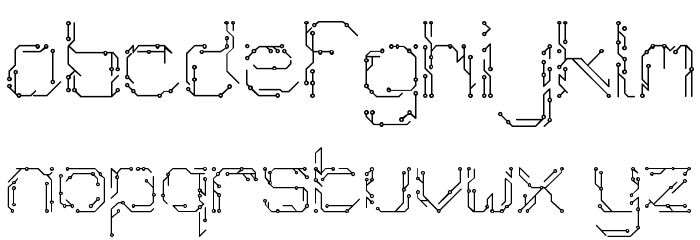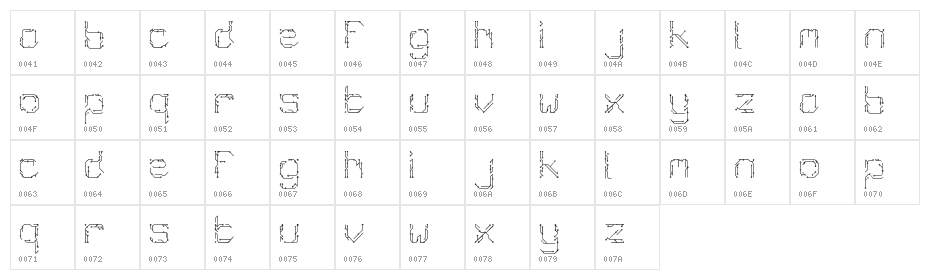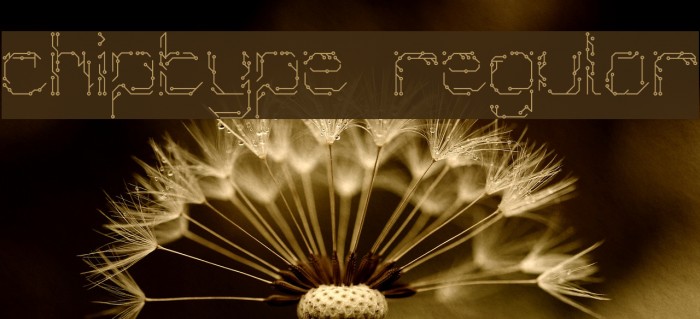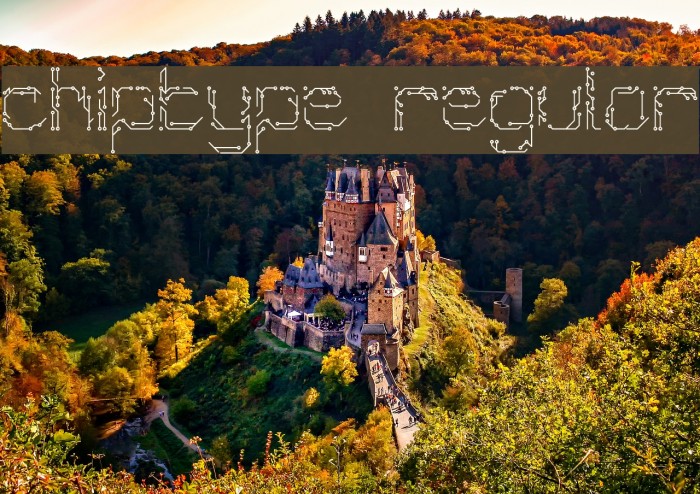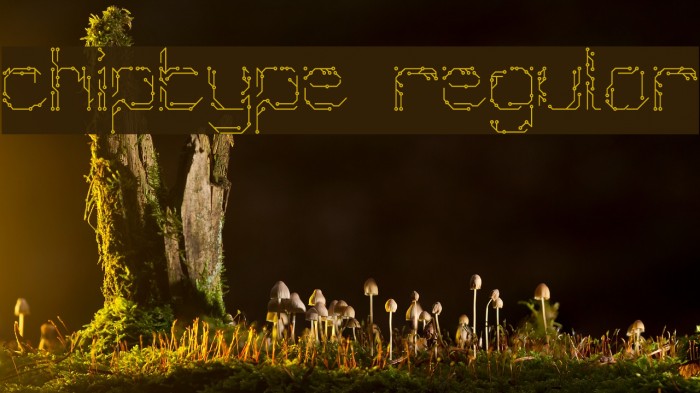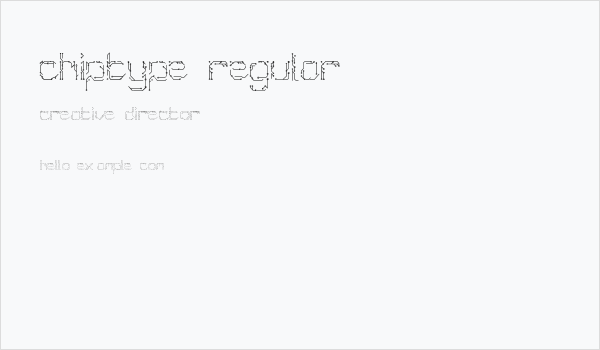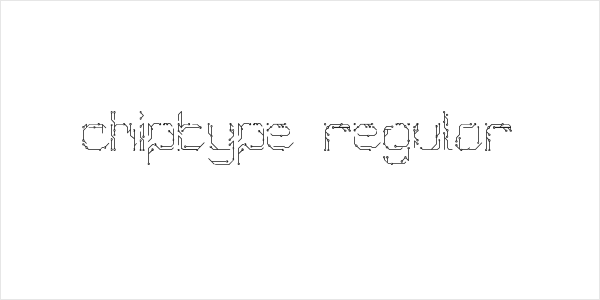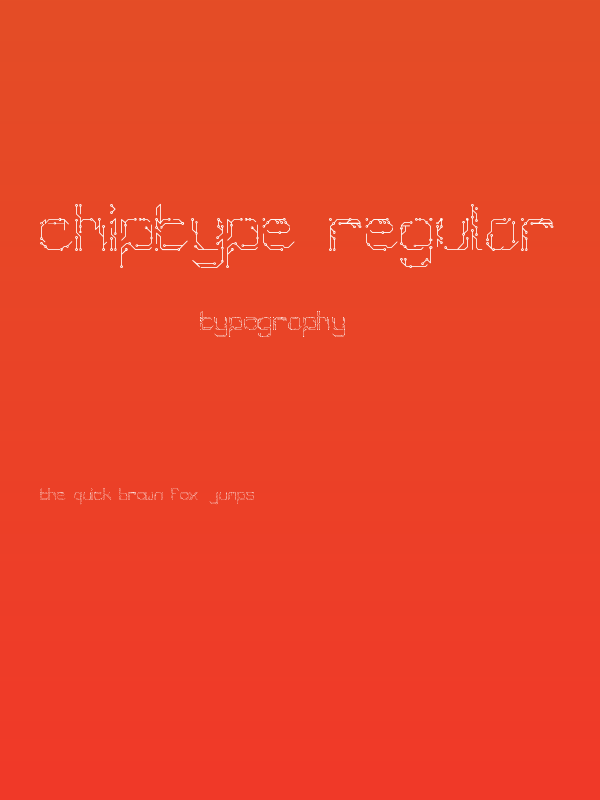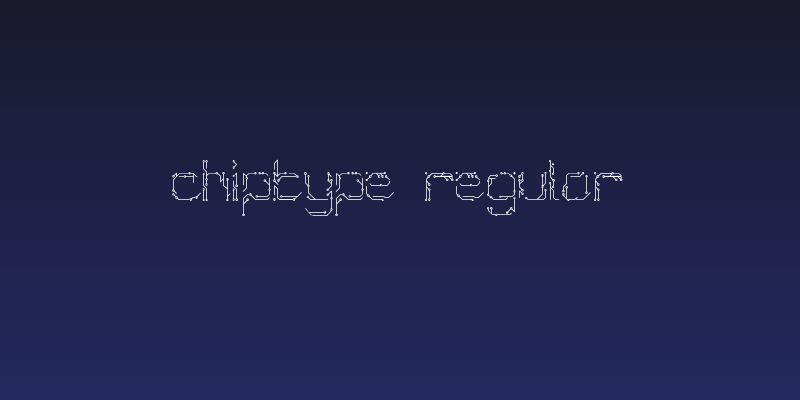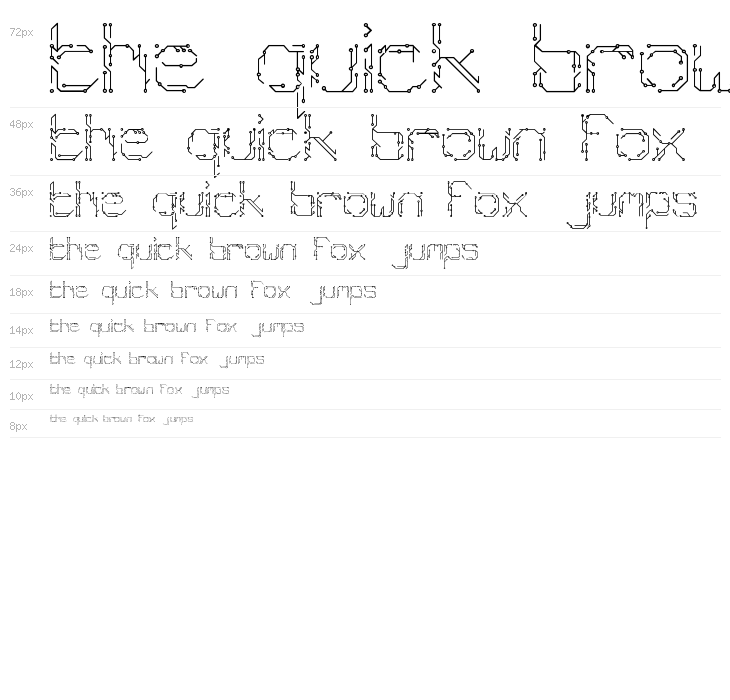
Chiptype Regular Font
Chiptype Regular Description
This font features a highly decorative and futuristic design, reminiscent of circuit board patterns. Each character is composed of intricate lines and dots, creating a digital and technological aesthetic. The font is structured with a consistent pattern that mimics electronic schematics, making it visually striking and unique. The characters are evenly spaced, maintaining a balanced appearance across the text. This font is ideal for projects that require a modern, tech-inspired look, such as technology branding, sci-fi themed designs, or digital art projects.
| Overall Style | Futuristic, Decorative |
| Proposed Projects | Ideal for technology branding, sci-fi themes, digital art, and futuristic designs. |